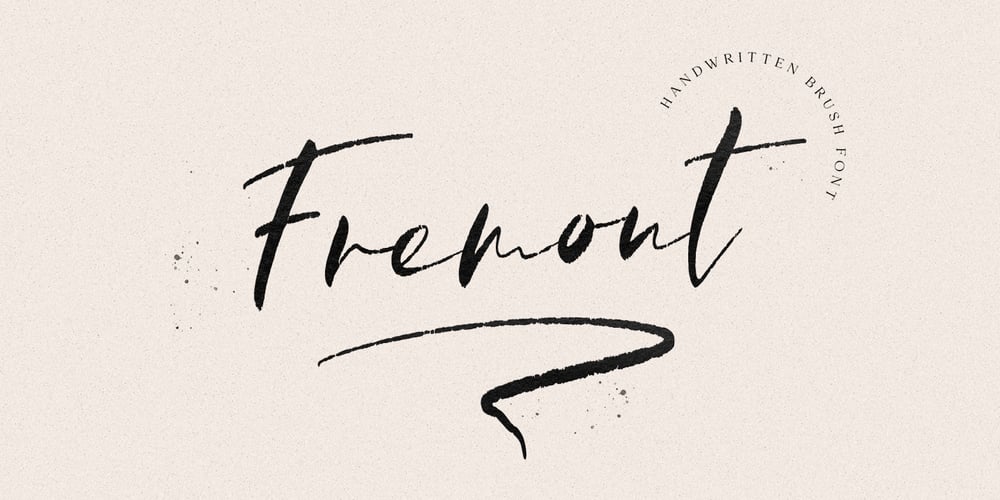
Fremont Font Family was designed by Pavel Larin and published by Larin Type Co. Fremont contains 1 styles and family package options. Fremont This is a beautiful and elegant hand drawn font, will underline your individuality in any project. Its relaxed feel makes this font incredibly versatile, fitting a wide range of designs. You can also use them to create a logo or templates, invitations, blog, branding, marketing, book covers, magazines, advertising, stationery, logo design and much more. This font is easy to use has OpenType features, and supported PUA encoded.